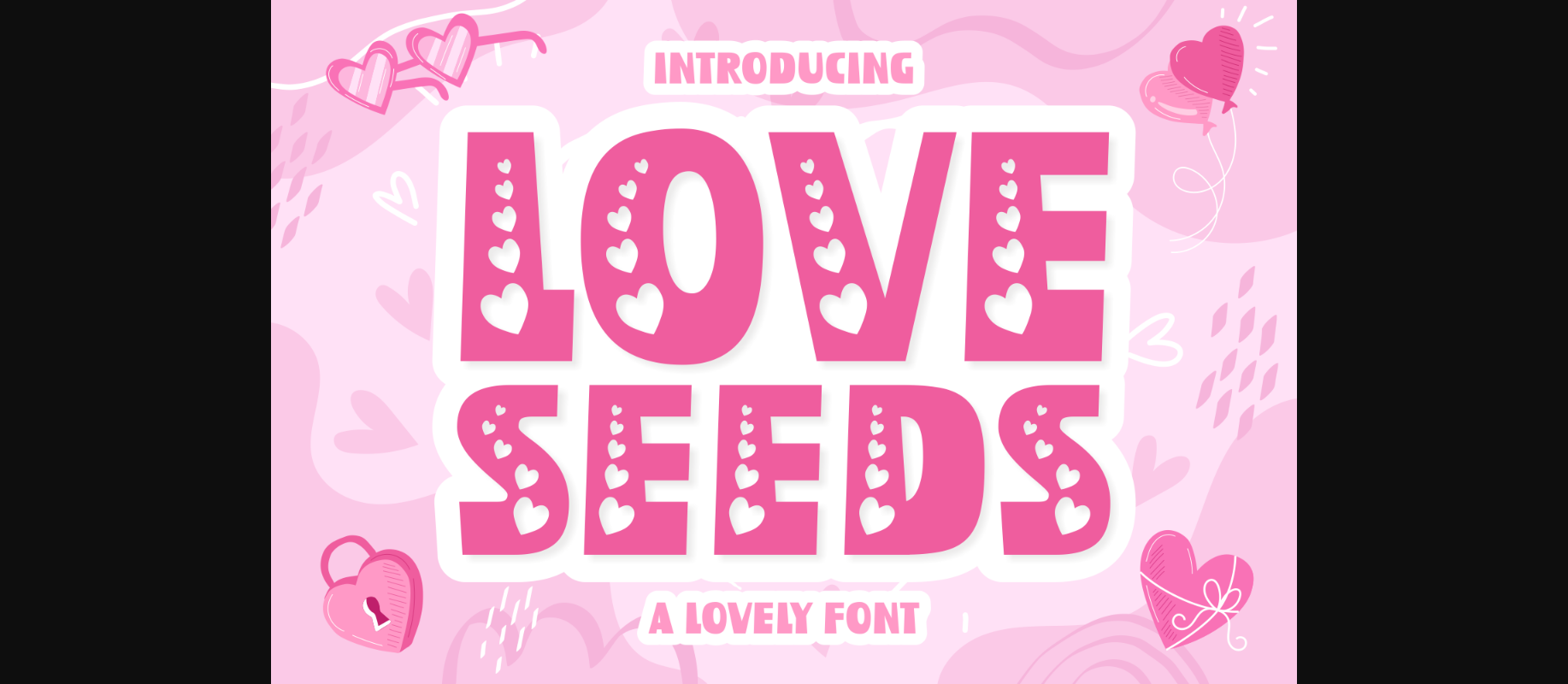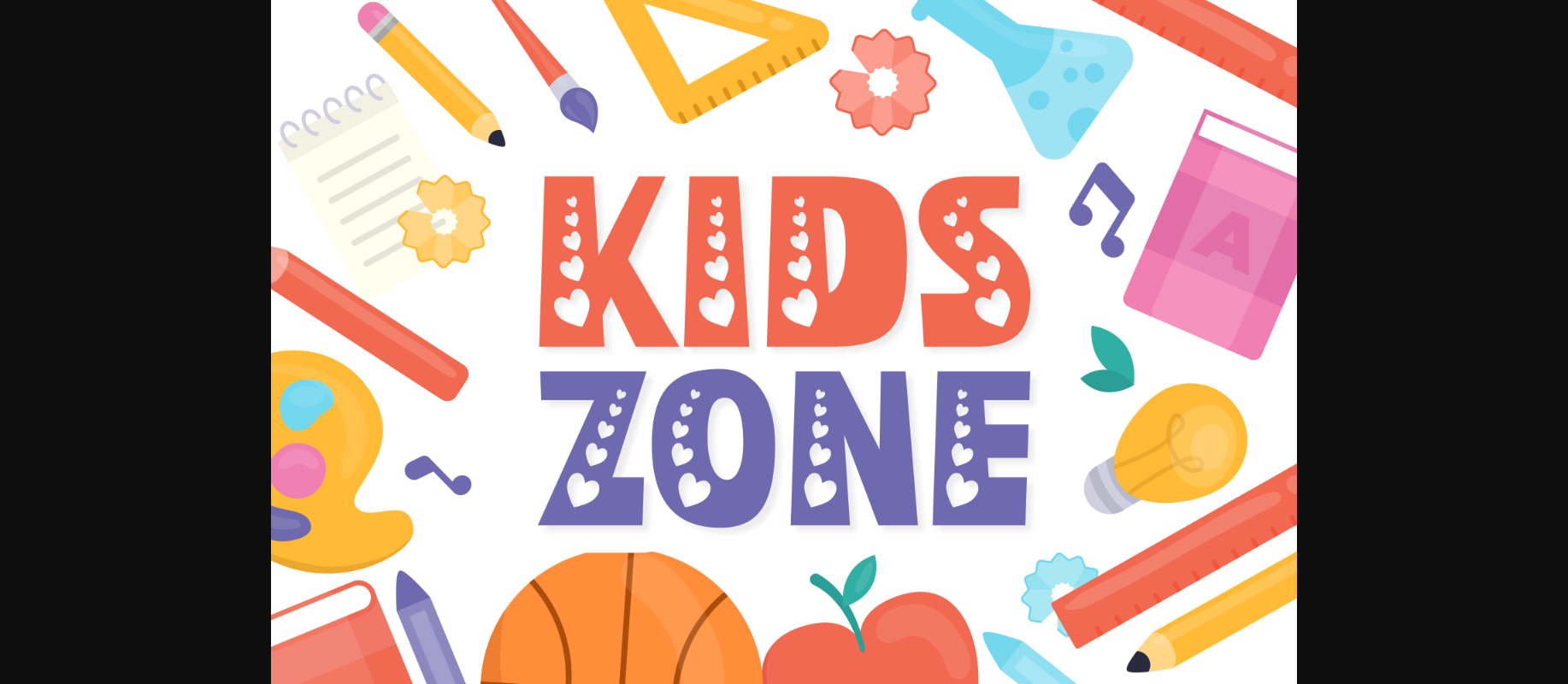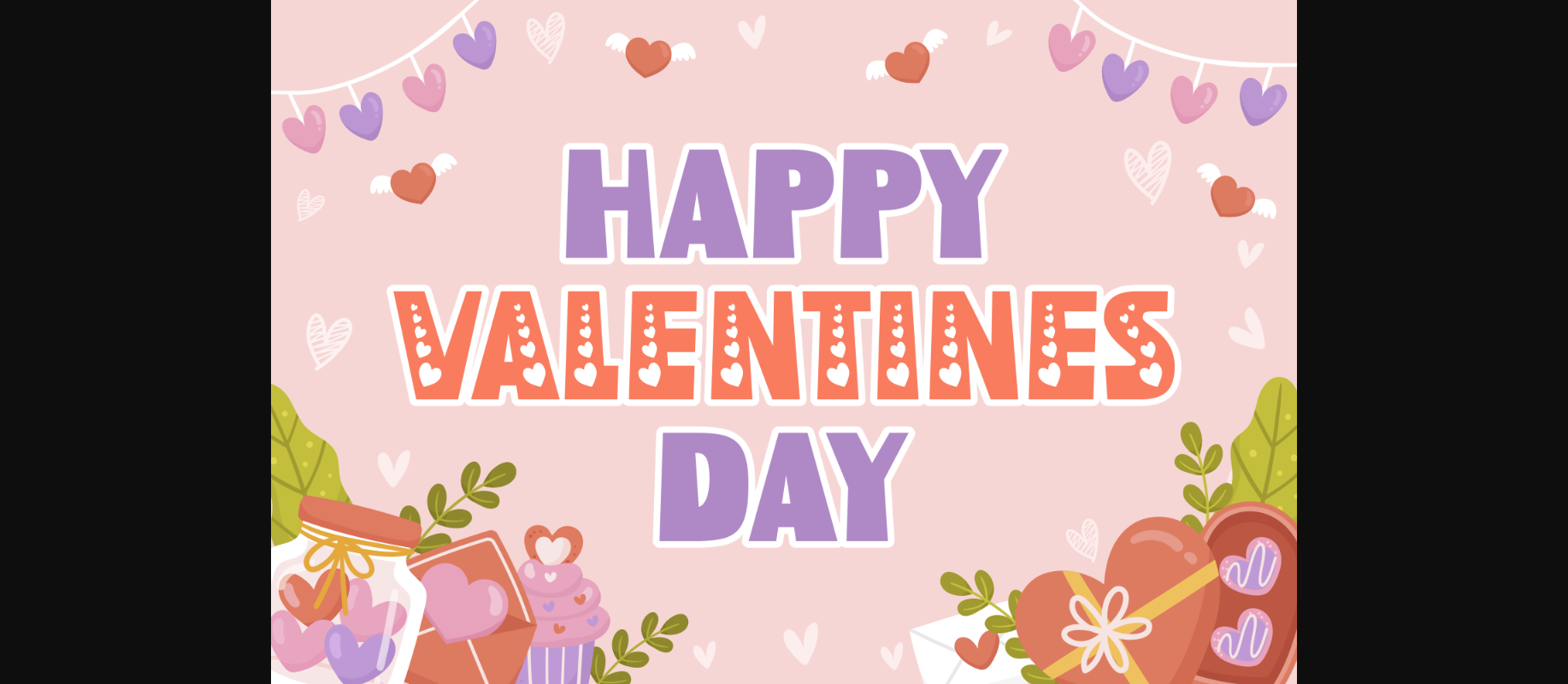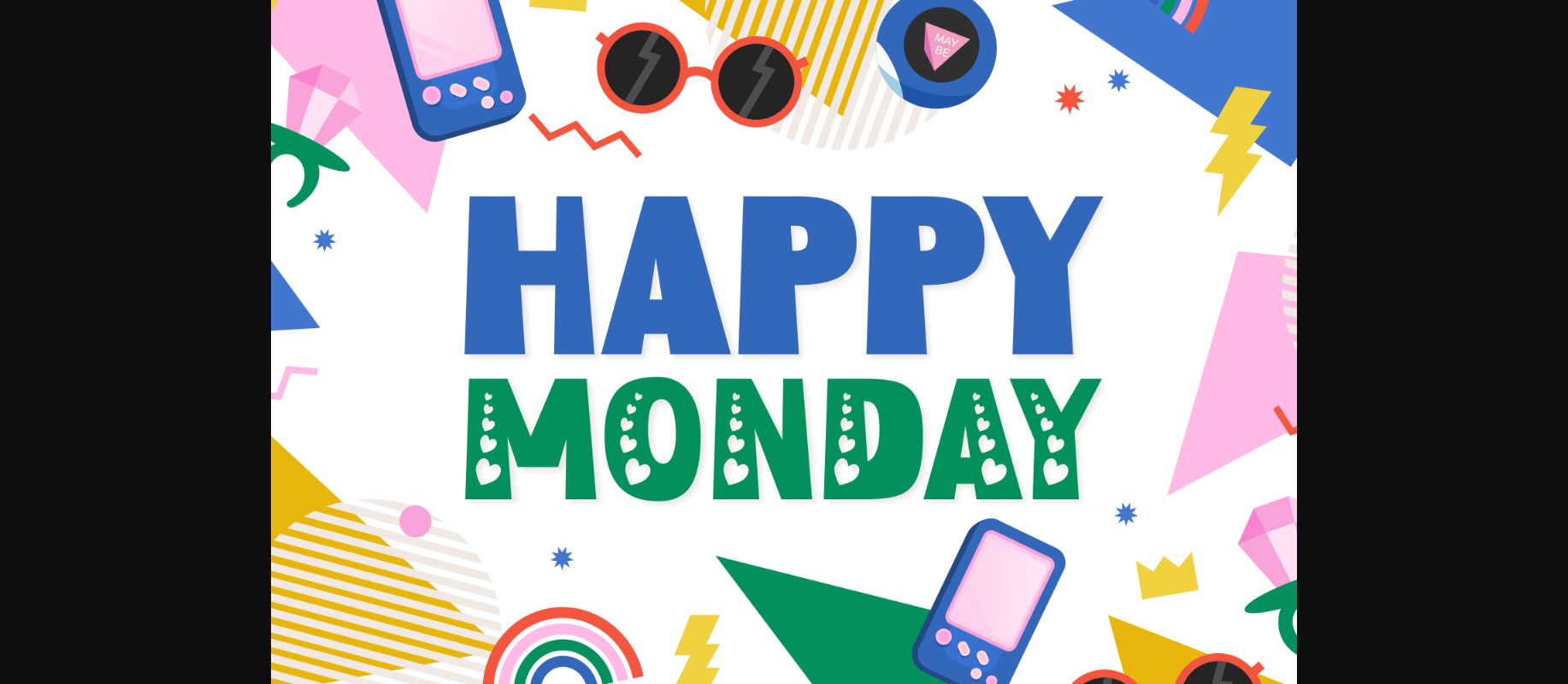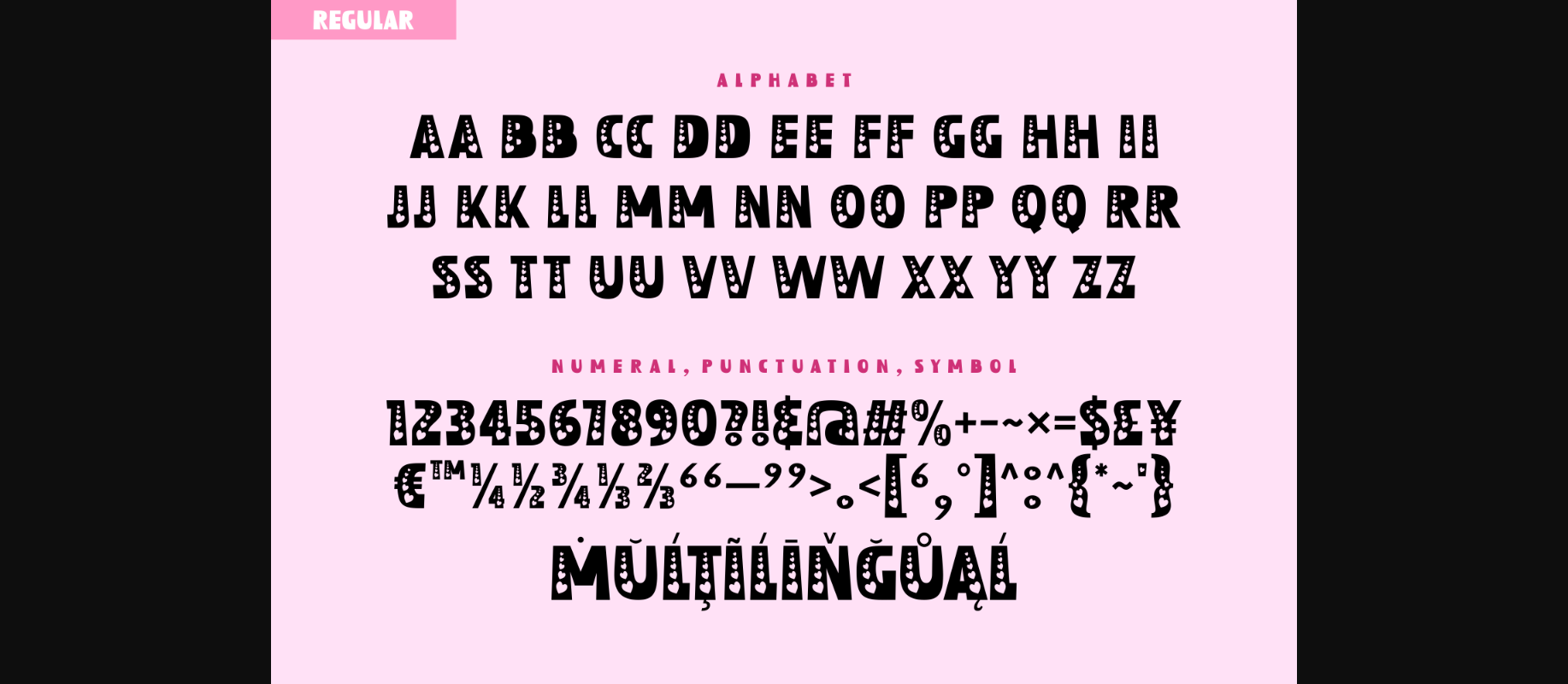
Love Seeds Font
About Love Seeds Font
Love Seeds is a beautiful decorative font with delicate swirls and curls, perfect for adding an elegant flair to any project. Its unique style adds a genuine touch of charm to any design.